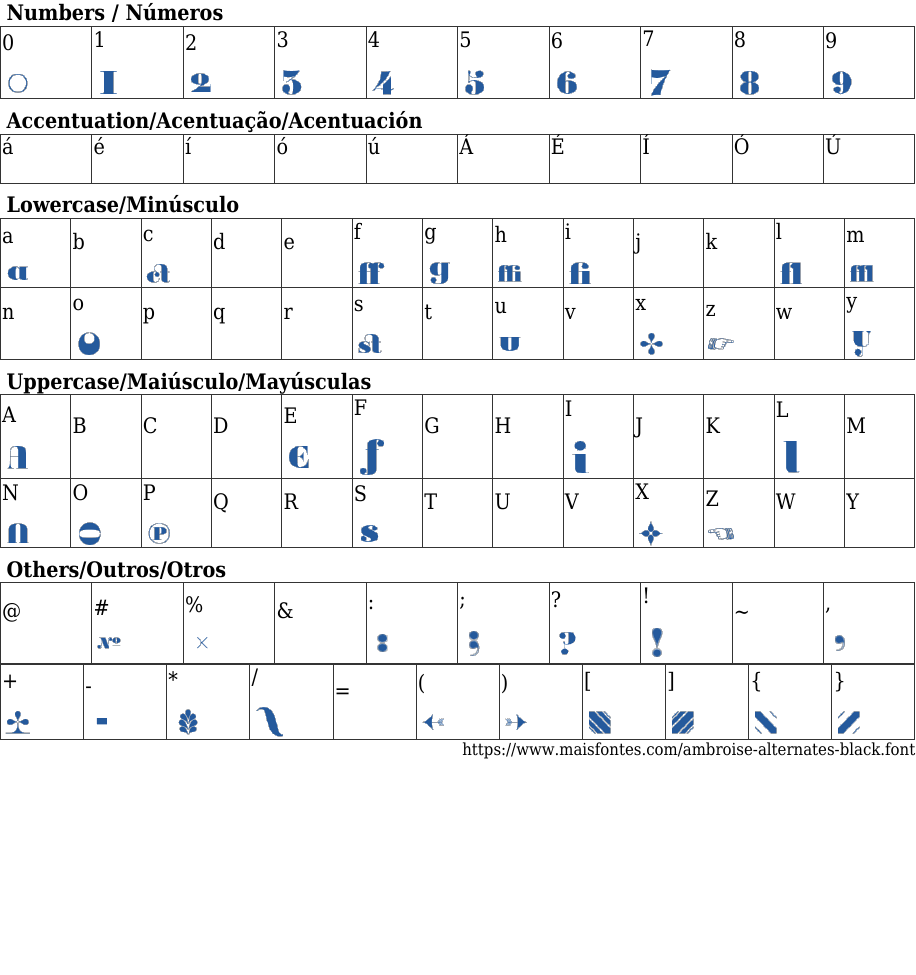
Ambroise Francois Regular 001.000 Fonts Free Download Ambroise Std Font Free Download Ambroise std™ fonts free downloads. Explore ambroise designed by jean françois porchez at adobe fonts. An exquisite didot font in 18 series ambroise is a contemporary interpretation of various typefaces belonging to didot’s late style, conceived circa. Fontstand allows trying ambroise std typeface for free or renting it for just a fraction of the regular price. Installable on pc, mac,. Ambroise Std Font Free Download.
ambroise font download louettapedrozo Ambroise Std Font Free Download Discover the free ambroise std francois font at free font download ! Ambroise std™ fonts free downloads. See how to download ambroise regular for free! Installable on pc, mac, linux, ios, and android platforms. View sample text, character map, user rating and review for ambrose std regular. A serif typeface with 17 styles, available from adobe fonts for sync and.. Ambroise Std Font Free Download.
Ambroise Alternates Demi Free Font Download MaisFontes Ambroise Std Font Free Download View sample text, character map, user rating and review for ambrose std regular. Download ambrose std regular for free. Explore ambroise designed by jean françois porchez at adobe fonts. Fontstand allows trying ambroise std typeface for free or renting it for just a fraction of the regular price. Discover the free ambroise std extra bold font at free font download. Ambroise Std Font Free Download.
Ambroise Std Regular Font at Nicholas Anderson blog Ambroise Std Font Free Download View sample text, character map, user rating and review for ambrose std regular. Ambroise std™ fonts free downloads. Installable on pc, mac, linux, ios, and android platforms. An exquisite didot font in 18 series ambroise is a contemporary interpretation of various typefaces belonging to didot’s late style, conceived circa. A serif typeface with 17 styles, available from adobe fonts for. Ambroise Std Font Free Download.